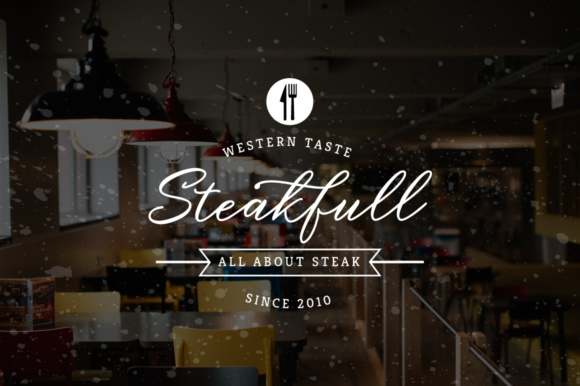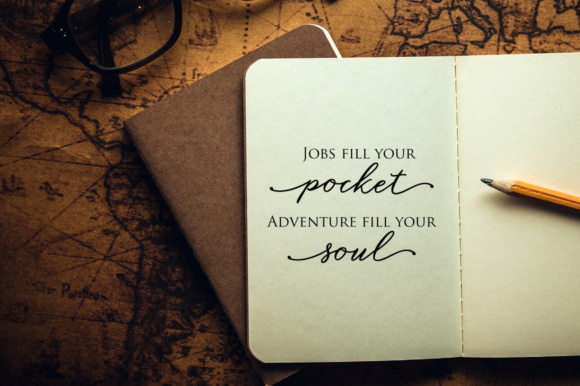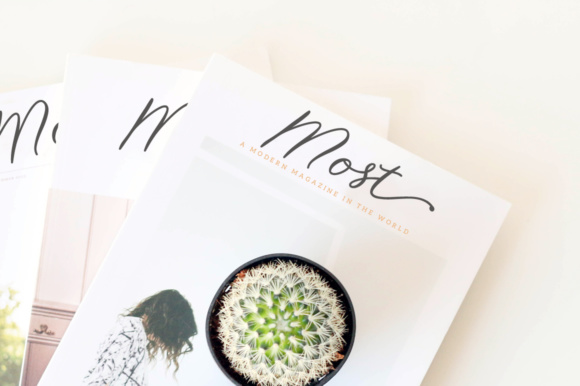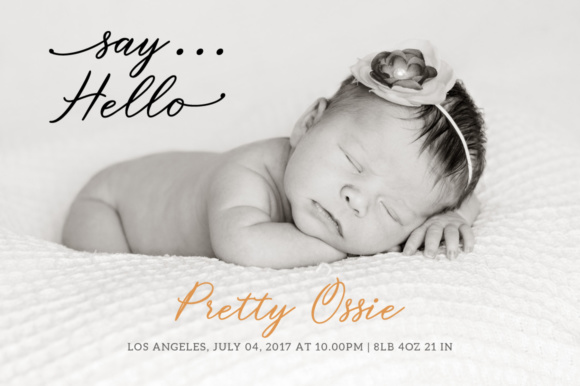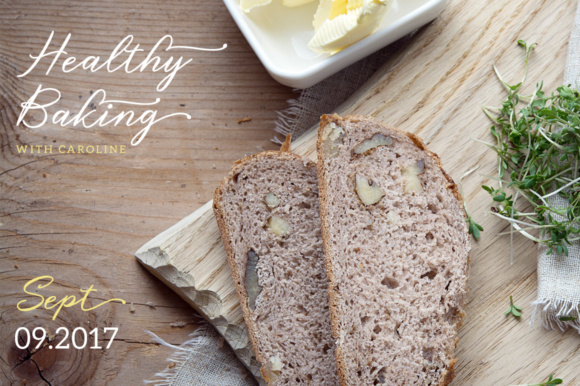
Steakfull Script Font
About Steakfull Script Font
The Steakfull is a modern and fun script font which brings elegance to your design. It is perfect for logos, social media banners and postcards.